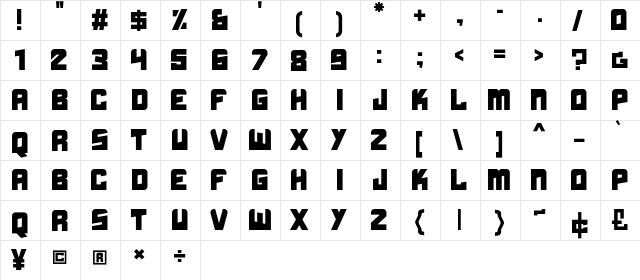
Boldhead Boldhead
Design Context for Boldhead Typeface
Boldhead offers clean, dependable letterforms without strong stylistic allegiance, making it a practical choice for designers who need flexibility. Its bold stroke weight gives it real presence on the page.
Pro Tip: Pair Boldhead with a font of contrasting weight or personality to build a more expressive typographic hierarchy.